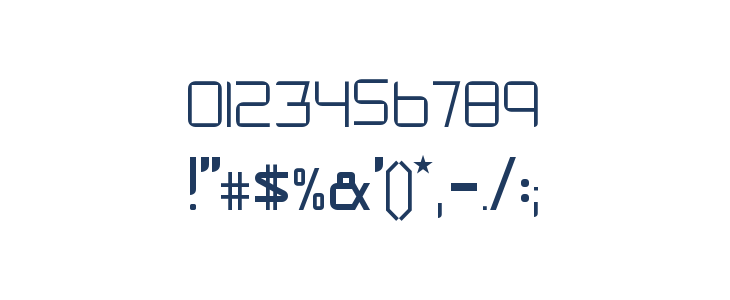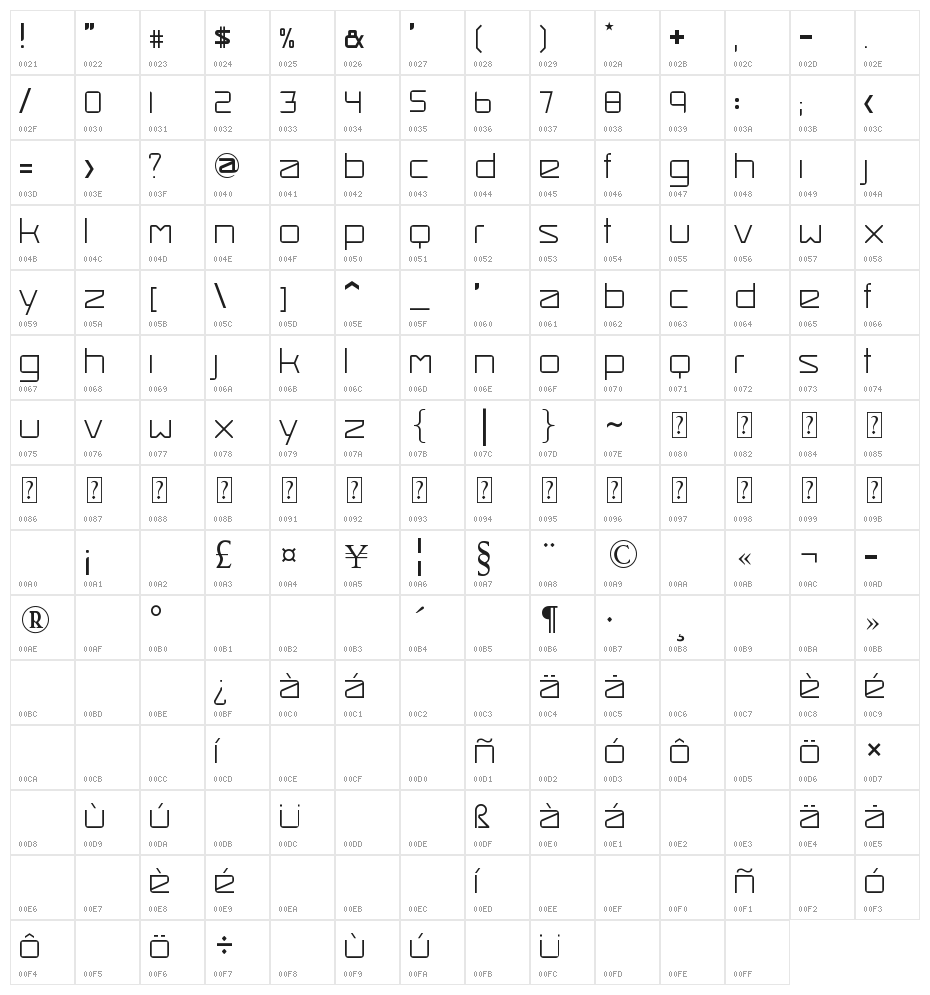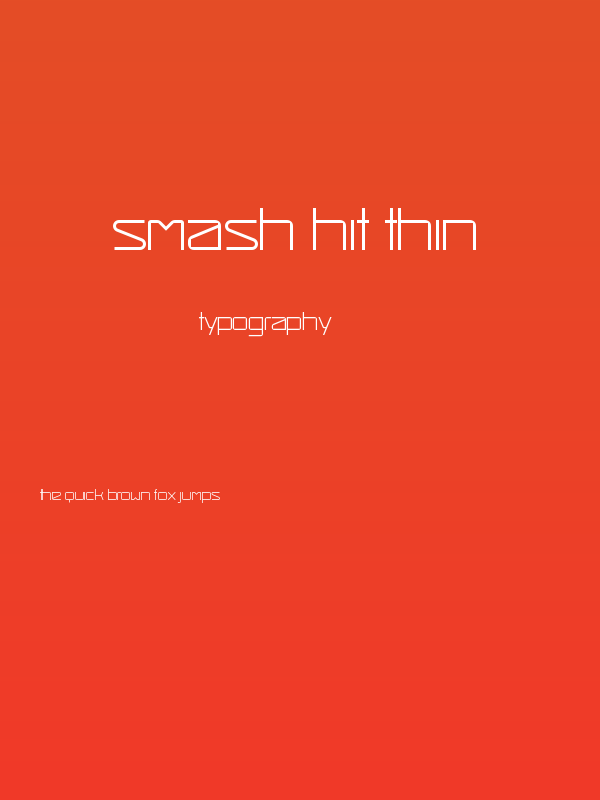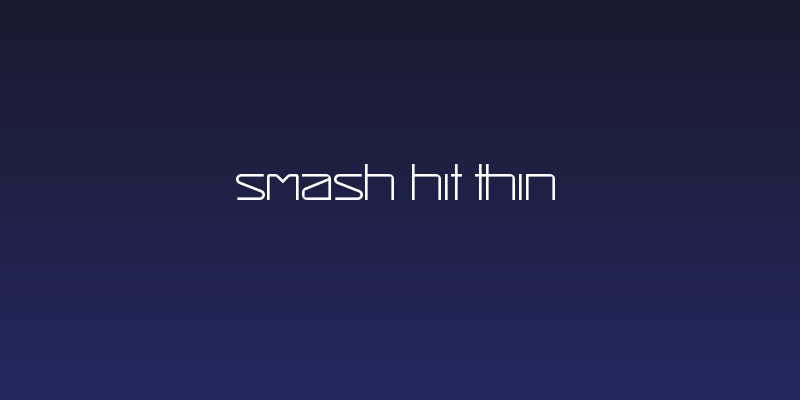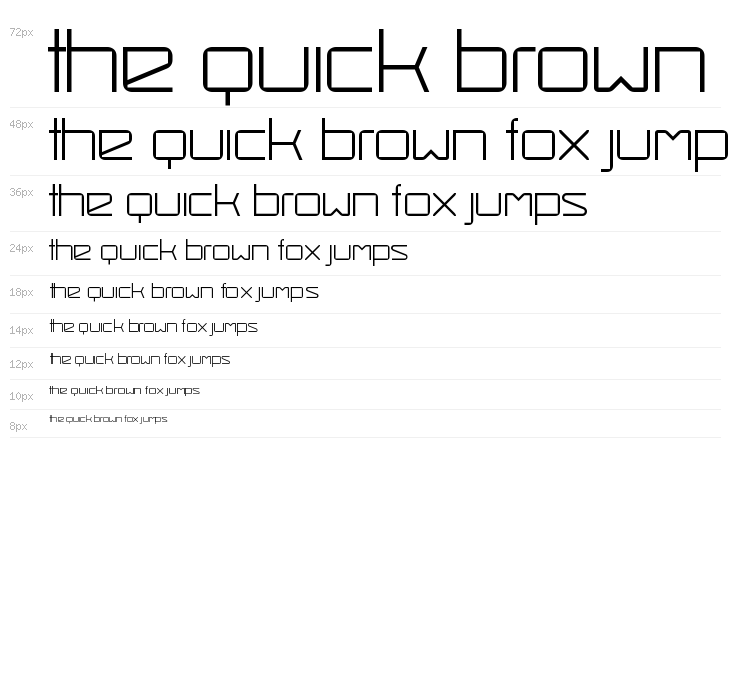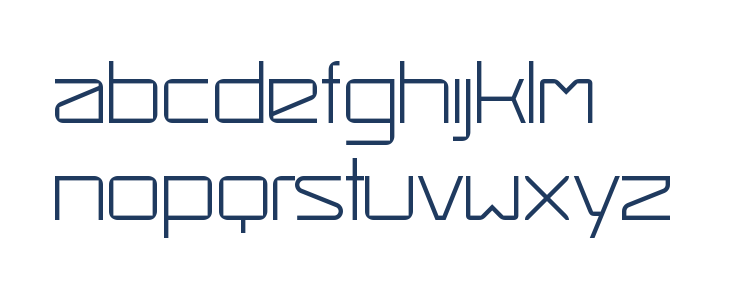
Smash Hit Thin Font
Smash Hit Thin Description
This font features a sleek, geometric design with a modern, minimalist aesthetic. The characters are constructed with thin, uniform lines that create a clean and open appearance. The uppercase and lowercase letters maintain a consistent height, contributing to a harmonious look. The numerals and special characters are designed with the same geometric precision, ensuring a cohesive style throughout. The font's simplicity and clarity make it highly legible, even at smaller sizes, while its contemporary style adds a touch of sophistication.
| Proposed Projects | Ideal for tech branding, minimalist posters, modern web design, and sleek product packaging. |